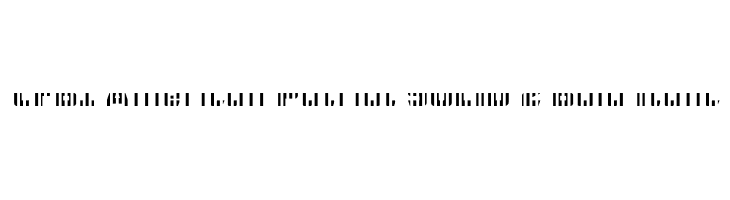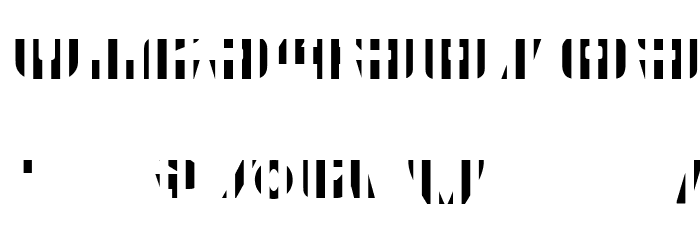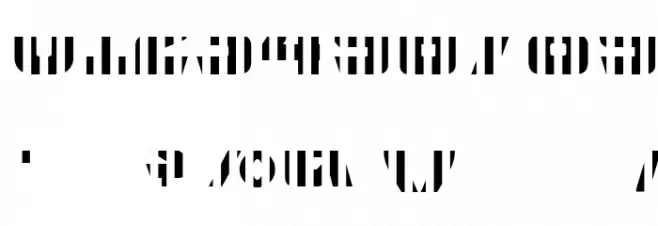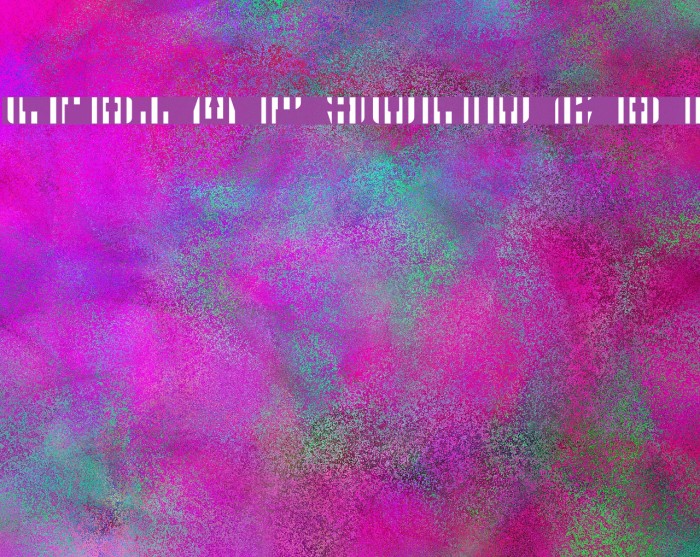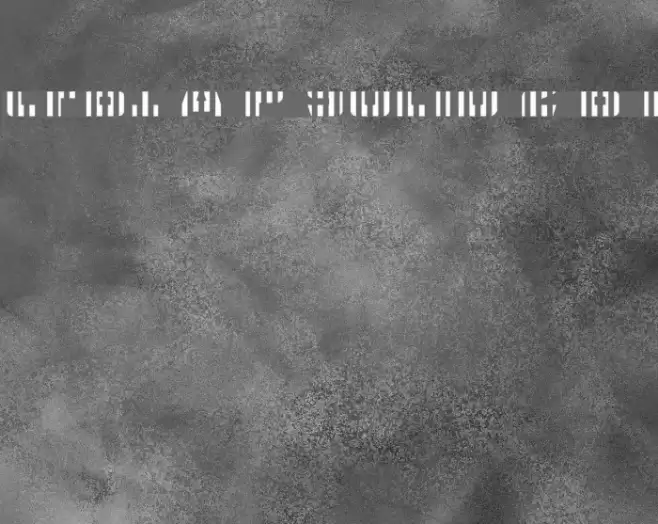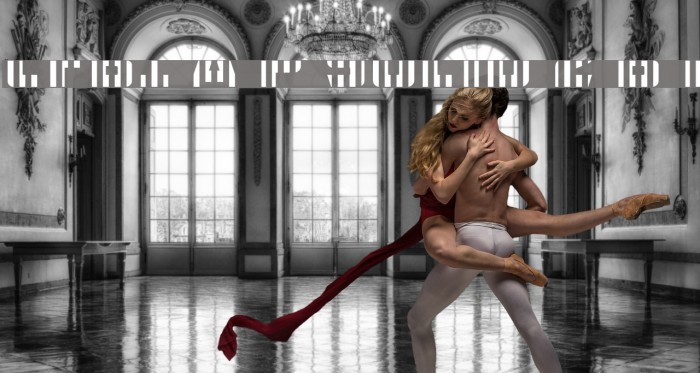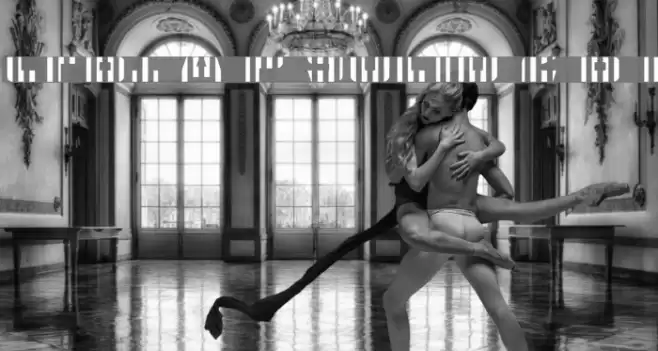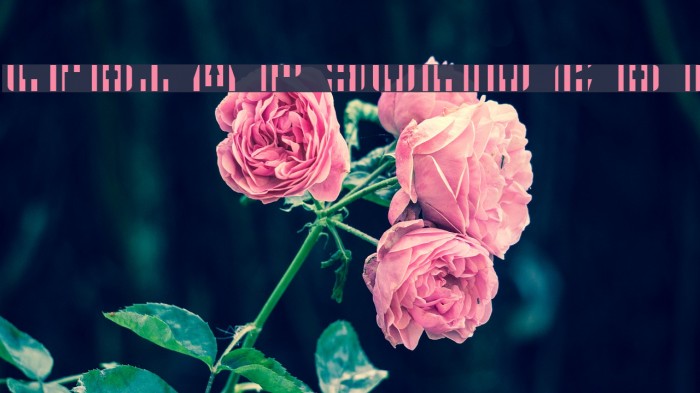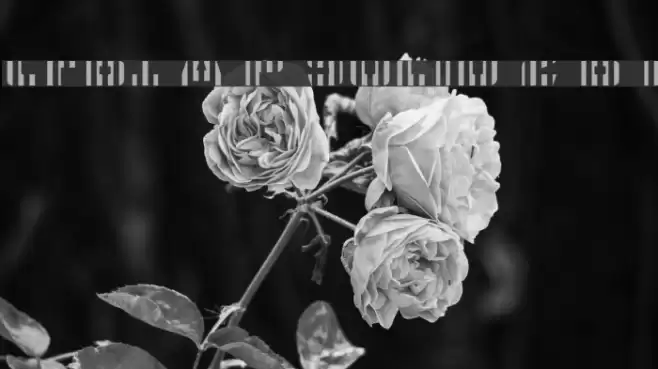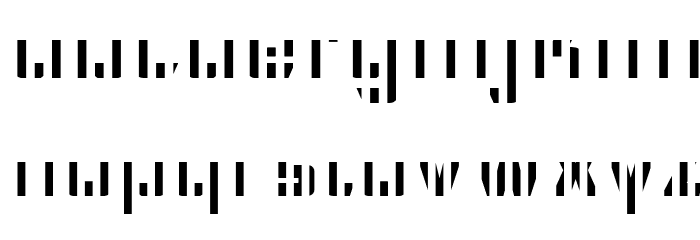
CFB1 American Patriot SOLID 2 Bold Italic Font
CFB1 American Patriot SOLID 2 Bold Italic Description
This font features a bold and italicized style with a distinctly modern and decorative flair. The characters are designed with a solid, robust appearance, emphasizing strong vertical and horizontal lines. The font exhibits a stencil-like quality, with certain sections of the letters intentionally removed to create a unique visual effect. This design choice adds a sense of movement and dynamism to the text, making it stand out prominently. The uppercase and lowercase letters maintain a consistent style, ensuring uniformity across different text sizes. The numbers and special characters are crafted with the same attention to detail, providing a cohesive look throughout. The font's boldness and italicization enhance its visibility, making it suitable for impactful headlines and attention-grabbing designs.
| Proposed Projects | Ideal for use in branding, posters, and any design project that requires a strong, eye-catching typeface. |